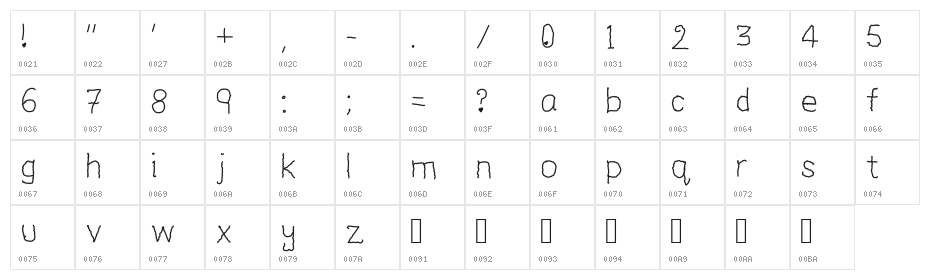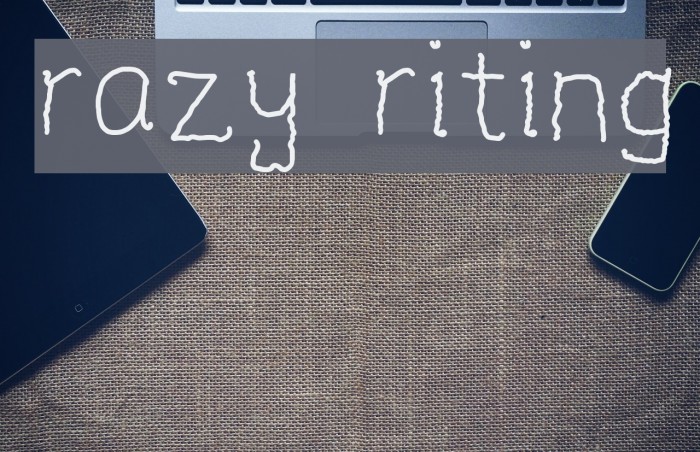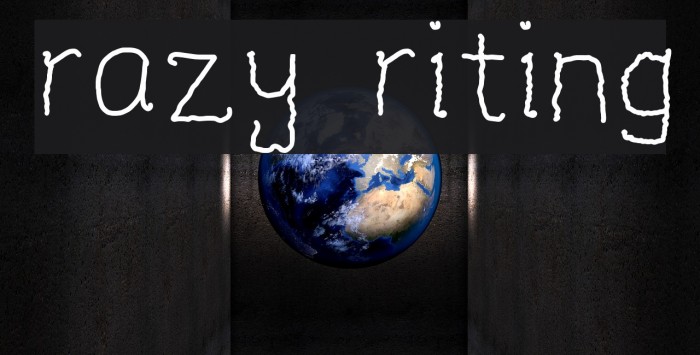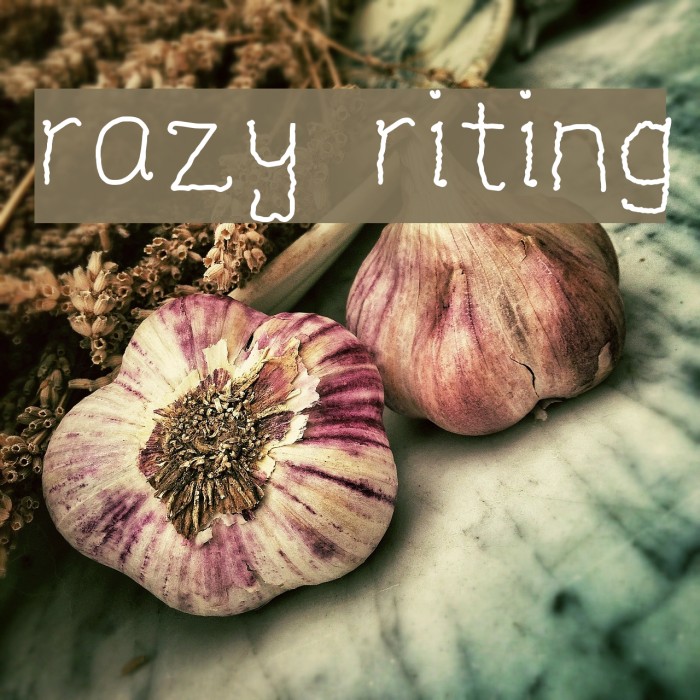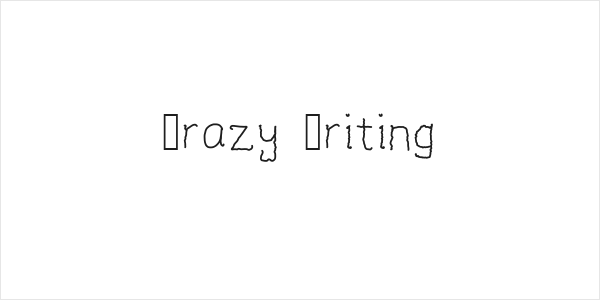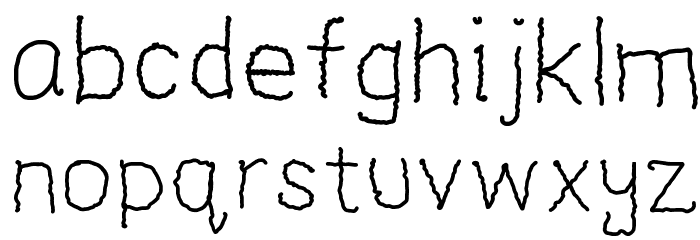
Crazy Writing Font
Crazy Writing Description
This font exhibits a playful and whimsical style, characterized by its irregular, wavy lines that mimic a hand-drawn effect. The lowercase letters have a casual, informal appearance, with each character displaying unique quirks and variations in stroke thickness. The numbers maintain this playful aesthetic, with rounded edges and a slightly uneven baseline that adds to the font's charm. The special characters are consistent with the overall style, featuring the same hand-drawn, uneven quality. This font is ideal for projects that require a touch of creativity and individuality, such as children's books, playful branding, or artistic posters.
CRAZY-WRITING UPPERCASE
CRAZY-WRITING LOWERCASE
CRAZY-WRITING OTHER CHARS
| Overall Style | Whimsical, Playful |
| Use Case | Headlines, Artistic projects, Informal text |
| Proposed Projects | Children's books, playful branding, artistic posters, creative invitations. |